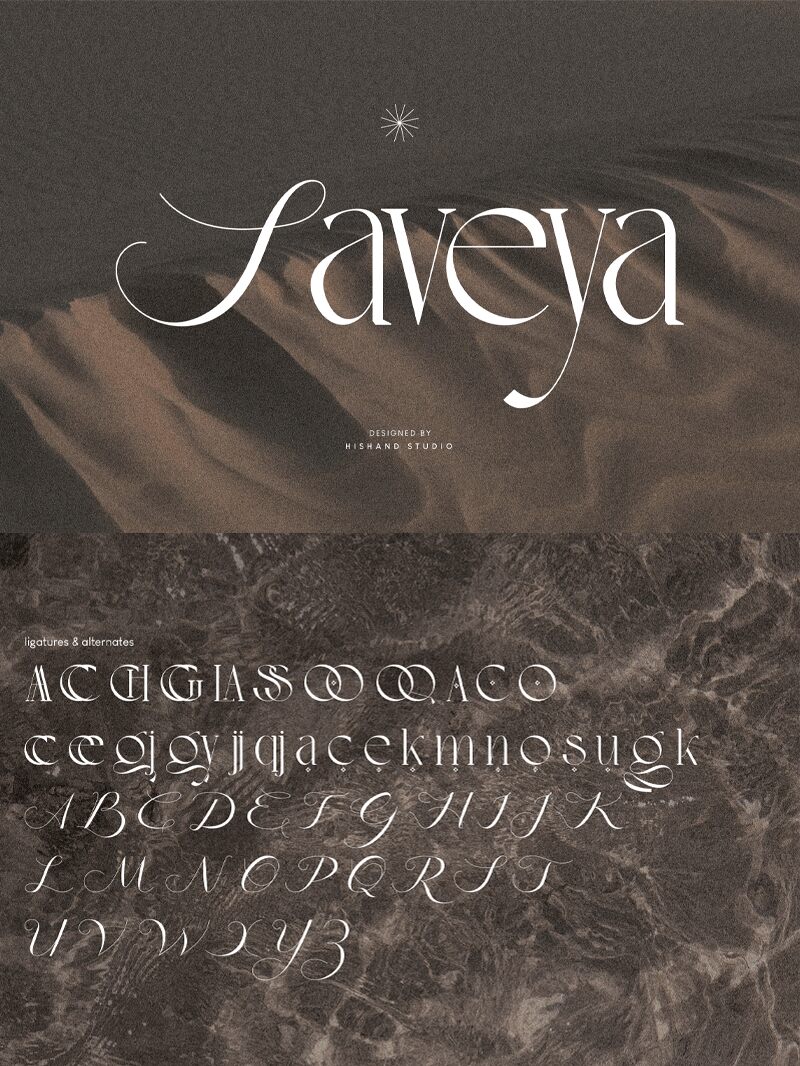
Saveya font, created by Hishand Studio, is a captivating serif typeface that elegantly marries tradition with modernity. Its light weight contributes to a refined and sophisticated aesthetic, making it stand out in any creative project. The graceful curves and precisely crafted serifs evoke a timeless elegance, ideal for branding, editorial design, or invitations. Perfect for designers seeking a free font download with character and versatility, Saveya delivers both readability and style.
Explore the potential of Saveya in diverse applications such as logos, headlines, and print media. Elevate your designs by integrating this distinctive serif font that offers remarkable charm and clarity. With its seamless adaptability to various styles and its complementary presence in both digital and print formats, Saveya is an essential asset for your typography toolkit. Download this free font today to enhance your creative portfolio.
Saveya